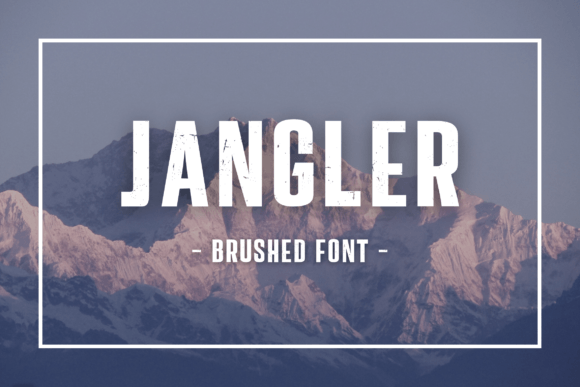
Jangler: A Bold, Unapologetic Sans Serif
First Glance: It Doesn’t Whisper — It Leans In
Opening Jangler for the first time feels like stepping into a studio where the sketchbook is already half-filled with confident, slightly asymmetrical shapes. This isn’t a neutral sans serif font. It’s got weight, rhythm, and a subtle irregularity — not in its construction, but in its attitude. The terminals flare just enough, the x-height sits tall without crowding, and the lowercase a and g carry quiet character without tipping into display excess. Jangler reads as modern typography with muscle: grounded, intentional, and quietly self-assured. It belongs on packaging that stands out on a crowded shelf, in a logo that refuses to blend, or in editorial design where voice matters more than invisibility.
Where Jangler Earns Its Place — Not Just Its Look
In logo design, Jangler shines when the brand needs presence without pretension. I’ve used it for an independent ceramics studio — paired with a warm, textured serif font for body copy — and it held its own on stamped clay tags and Instagram bios alike. Its strong verticals and open counters keep it legible even at small sizes on product labels, though I always test it at 8 pt on actual label stock before finalizing. For packaging design, especially premium packaging, Jangler adds tactile confidence: think matte black box with crisp white Jangler lettering — no extra effects needed.
It performs cleanly in web design headers and social media graphics, but only when applied with restraint. A full-width hero banner with Jangler in bold, 64 pt? Yes — if the background is uncluttered and the message is short. A paragraph of body text in Jangler? No. It’s a sans serif font built for impact, not endurance. That said, I’ve seen it work beautifully as supporting text in Canva templates — not for long captions, but for pull quotes, section dividers, or callout boxes where hierarchy needs reinforcement, not explanation.
For digital products and printable design, Jangler holds up across devices and output methods. I tested it in a Cricut project for vinyl decals — it cut cleanly at 1.25 inches tall, and the slight contrast in stroke weight gave dimension without fragility. As a commercial font, it’s stable in PDF exports and renders reliably in Figma, Adobe apps, and browser previews. Just confirm the license covers your use case — especially if you’re bundling it into client deliverables or digital assets sold on marketplaces.
Where to Lean — and Where to Pause
Jangler excels in short-form, high-impact contexts: brand marks, poster headlines, merchandise chest logos, invitation monograms, and social posts with tight copy. Its personality is strongest in uppercase settings — there’s a graphic punch to “WILD” or “TRUE” in all caps that feels deliberate and memorable. But don’t overlook lowercase: used sparingly in subheads or taglines, it brings warmth and approachability without softening the tone.
Use it carefully in editorial design where neutrality supports content — Jangler draws attention to itself, so it’s better suited for magazine covers or chapter openers than body text in a long-form blog post. Similarly, avoid pairing it with other strong display fonts or overly ornate script fonts unless you’re aiming for intentional tension (and have the layout discipline to pull it off). It pairs best with a calm, generous serif font — think Merriweather or PT Serif — or a clean, low-contrast sans serif font like Inter or Lato for balance.
What It Does to Your Work — Beyond Aesthetics
Jangler affects audience trust indirectly but powerfully. Because it feels hand-informed yet technically precise, it signals care — not just in execution, but in intention. That builds recognition faster than a generic sans serif font ever could. In brand identity systems, it creates consistency through distinct rhythm: once you set spacing, weight, and sizing rules, Jangler becomes instantly identifiable across touchpoints — from email headers to tote bag prints.
Readability is strong at medium to large sizes, but it’s not optimized for extended reading. Its charm lies in clarity under pressure — on a tiny product label in natural light, on a sunlit outdoor poster, or in a fast-scrolling Instagram Story. Engagement rises when Jangler anchors a visual idea with confidence: people pause longer on a flyer where the headline feels *meant* to be seen, not merely read.
Designer Notes You’ll Actually Use
- Test it in black and white first. Jangler’s strength is structural — color can distract from how well its forms hold up without crutches.
- Check small-size readability on real mockups. Print a 6 pt version on your intended paper stock or view it on a mobile screen at actual size — don’t rely on zoomed-in previews.
- Compare uppercase vs. lowercase in context. They behave differently: uppercase gives authority; lowercase adds nuance. Choose deliberately.
- Review spacing — especially tracking in all-caps settings. Jangler benefits from slight loosening at larger sizes to let its shape breathe.
- Try font pairing beside at least three types: a sturdy serif font, a neutral sans serif font, and a restrained script font. See where Jangler leads, supports, or clashes — then choose based on your hierarchy goals.
This isn’t a font that adapts to every brief. It’s a premium font with a point of view — one that works hardest when you let it do what it does best: declare, distinguish, and hold space. If your project needs quiet utility, reach for something else. But if you’re building brand identity for a craft business that values authenticity, designing packaging for a small-batch food brand that wants to feel both earthy and elevated, or creating social media graphics that need to stop scrollers mid-feed — Jangler earns its place. It’s not background music. It’s the opening line of the story. And sometimes, that’s exactly what your design needs to say.